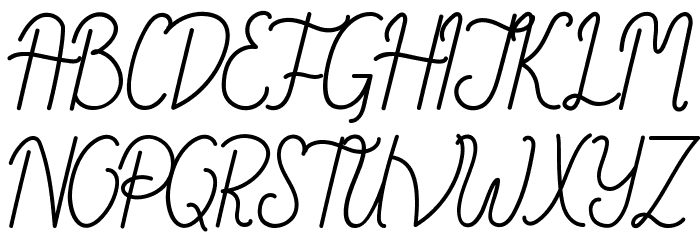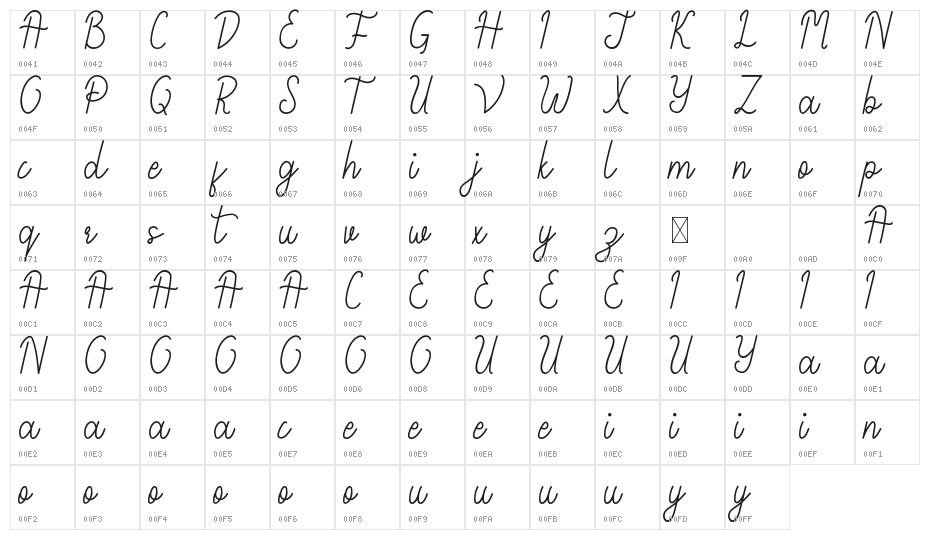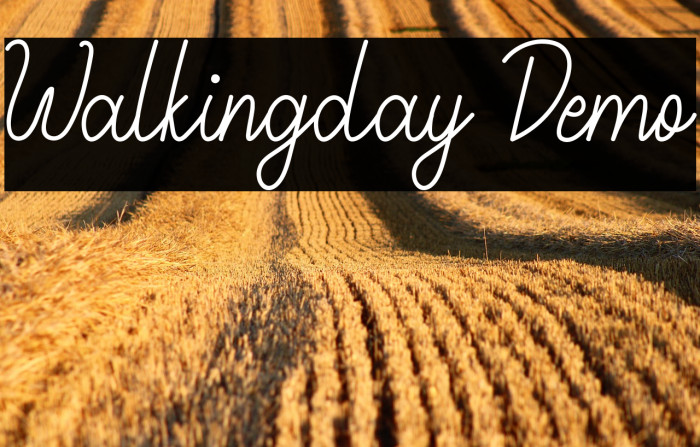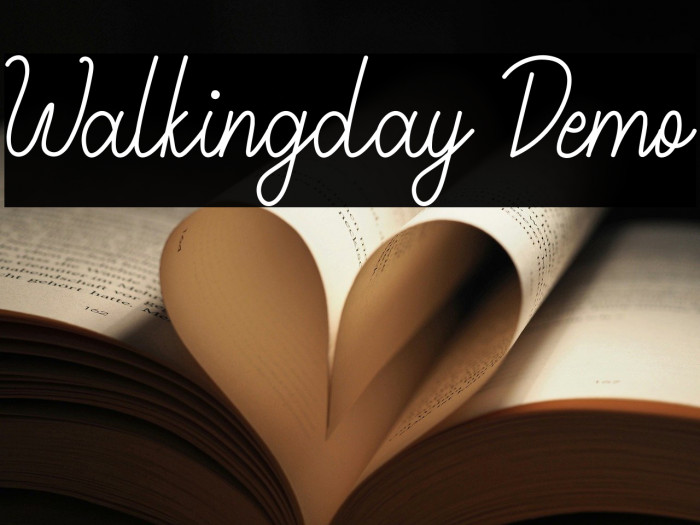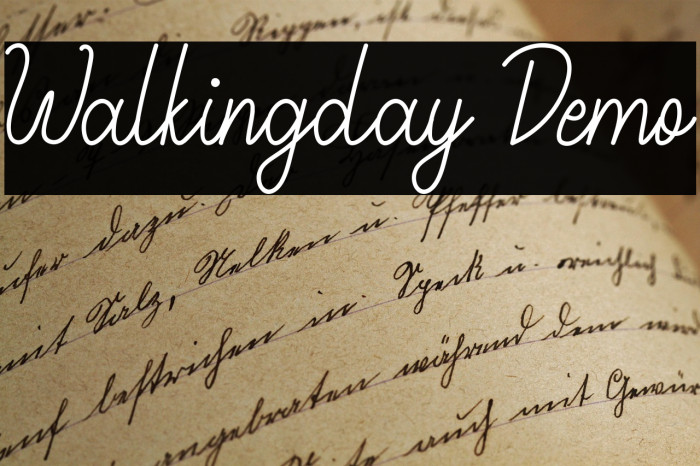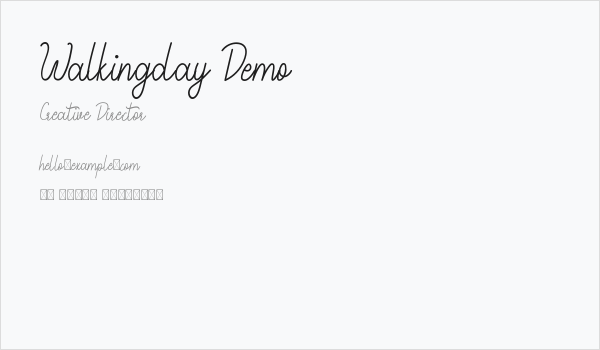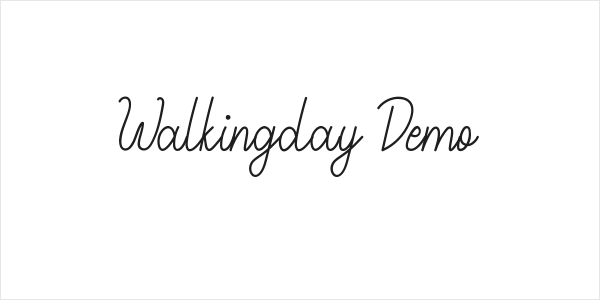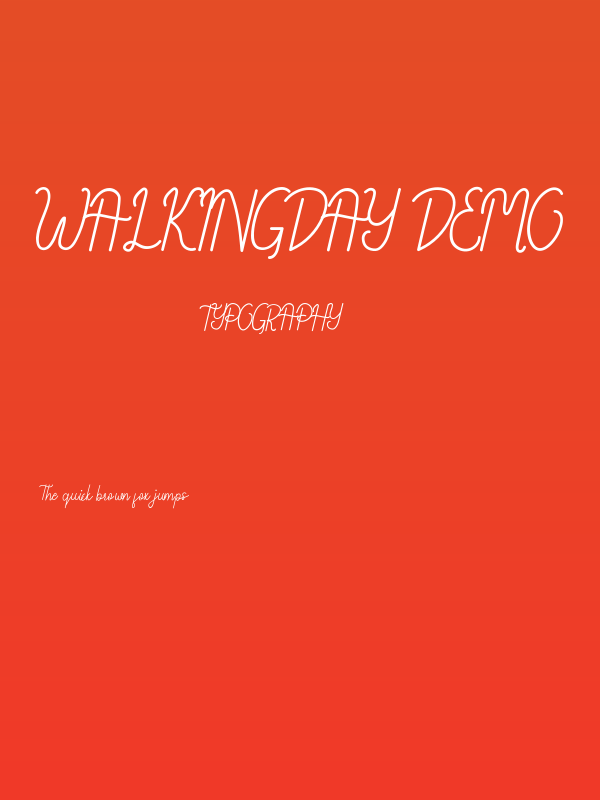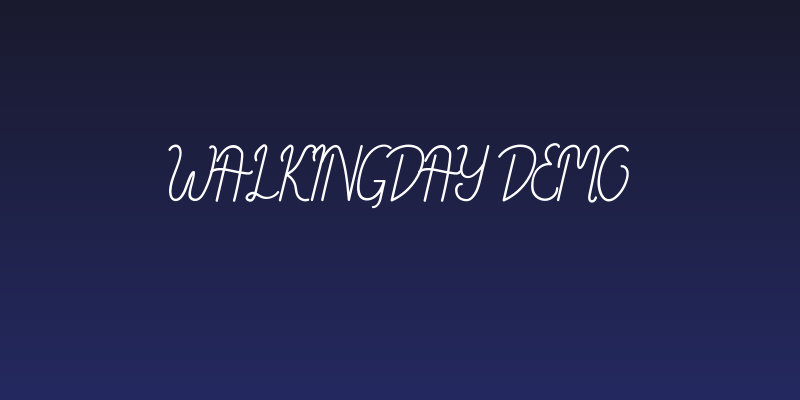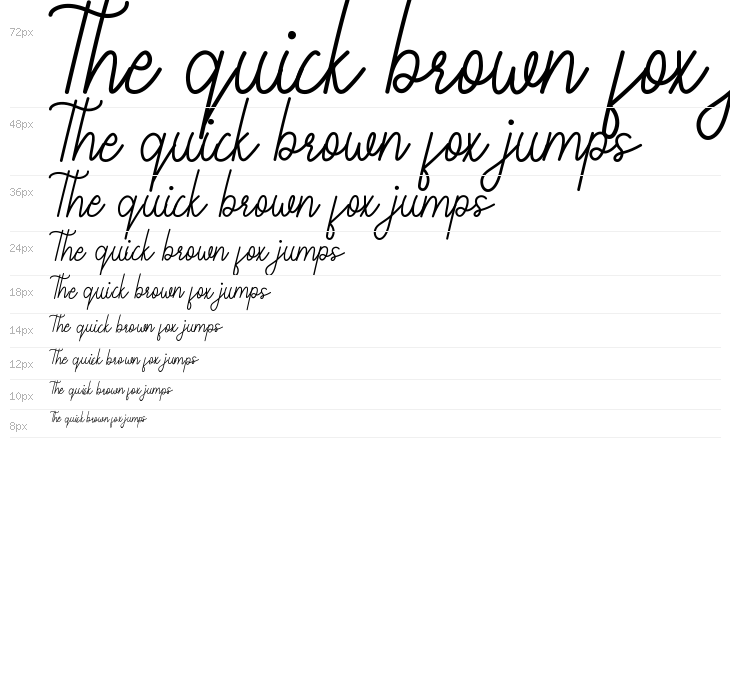
Walkingday Demo Font
Walkingday Demo Description
This font features a flowing, cursive style that exudes elegance and sophistication. The characters are interconnected, creating a seamless and fluid appearance. The uppercase letters maintain a consistent height, while the lowercase letters exhibit a playful looped design, adding a touch of whimsy. The strokes are smooth and rounded, with a medium thickness that ensures readability while maintaining a delicate aesthetic. This font is perfect for projects that require a personal touch, such as invitations, greeting cards, or branding materials. Its unique style makes it stand out, yet it remains versatile enough for various applications.